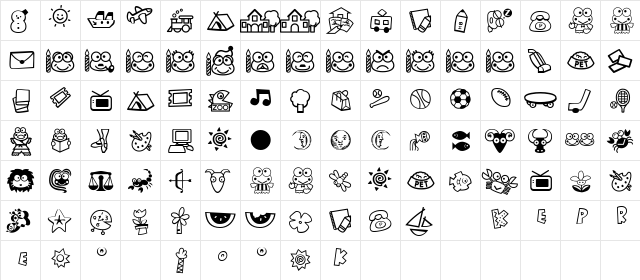
Keroppi Regular
Design Context for Keroppi Typeface
Keroppi is a composed and adaptable typeface that performs quietly and consistently across a wide range of design contexts.